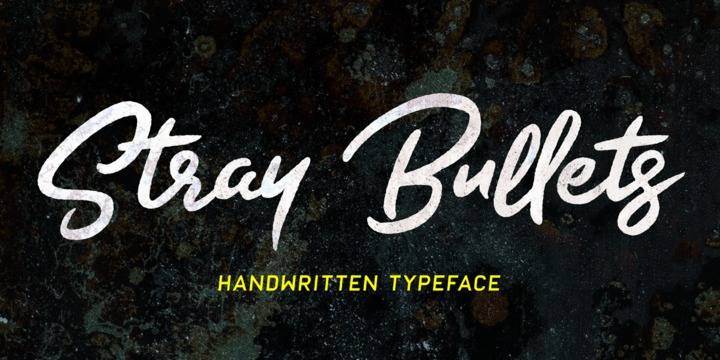
Stray Bullets Font
Stray Bullets Font is perfect for action movie posters, comic book design, video game graphics, urban streetwear branding, extreme sports marketing, rock band merchandise, grunge-style designs, underground music covers, rebellion-themed projects, skateboard graphics, tattoo shop signage, and edgy creative projects that require bold, rebellious typography with strong attitude.
What makes Stray Bullets Font so exciting is its raw, rebellious energy and gritty aesthetic that captures the essence of urban culture and underground movements. This typeface features distressed, weathered letterforms with rough edges and dynamic character variations that create an immediate sense of authenticity and street credibility. The font's aggressive personality and uncompromising attitude make it perfect for brands and projects that want to communicate rebellion, independence, and counter-culture values.
Stray Bullets Font typically comes in multiple weights and styles including Regular, Bold, Distressed, and Outline variations. Many versions also include grunge textures, alternative characters, and decorative elements that enhance the font's underground aesthetic and provide designers with comprehensive tools for creating authentic street-style typography compositions.
Whether you're designing alternative music packaging, extreme sports branding, or underground culture materials, Stray Bullets Font delivers unmatched edge and authenticity that connects with audiences who value independence and creative freedom. Its rough, distressed appearance works exceptionally well in large display applications where its rebellious details can create maximum visual impact.
The boldly crafted letterforms of Stray Bullets Font showcase the raw energy and uncompromising spirit of street culture and underground movements. Each character has been designed to convey strength, rebellion, and authentic grit while maintaining readability and professional functionality, making it particularly valuable for brands that need typography as bold and uncompromising as their message.